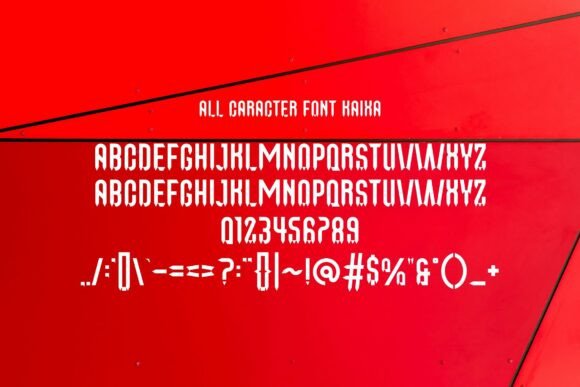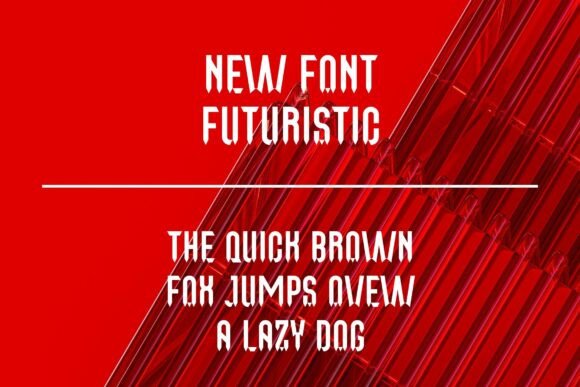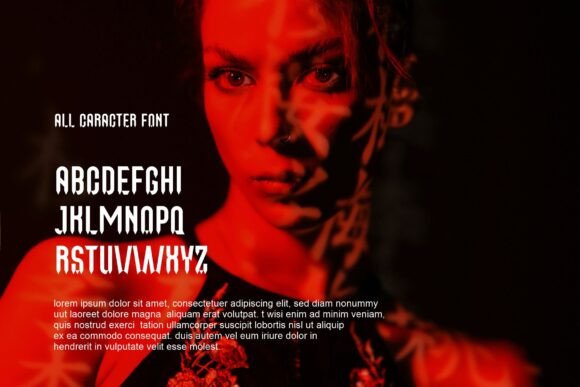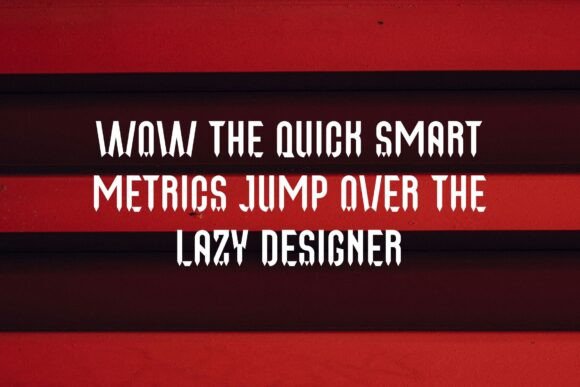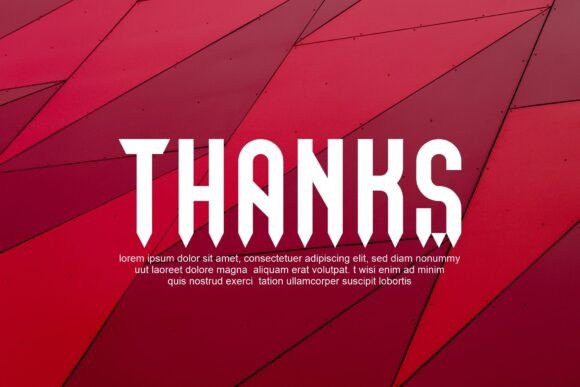
Introduction to Kaixa Font
Kalxa is a bold and assertive sans font.
No matter the topic, this font will be an incredible asset to your fonts library, as it has the potential to elevate any creation .
Key Features of Kaixa Font